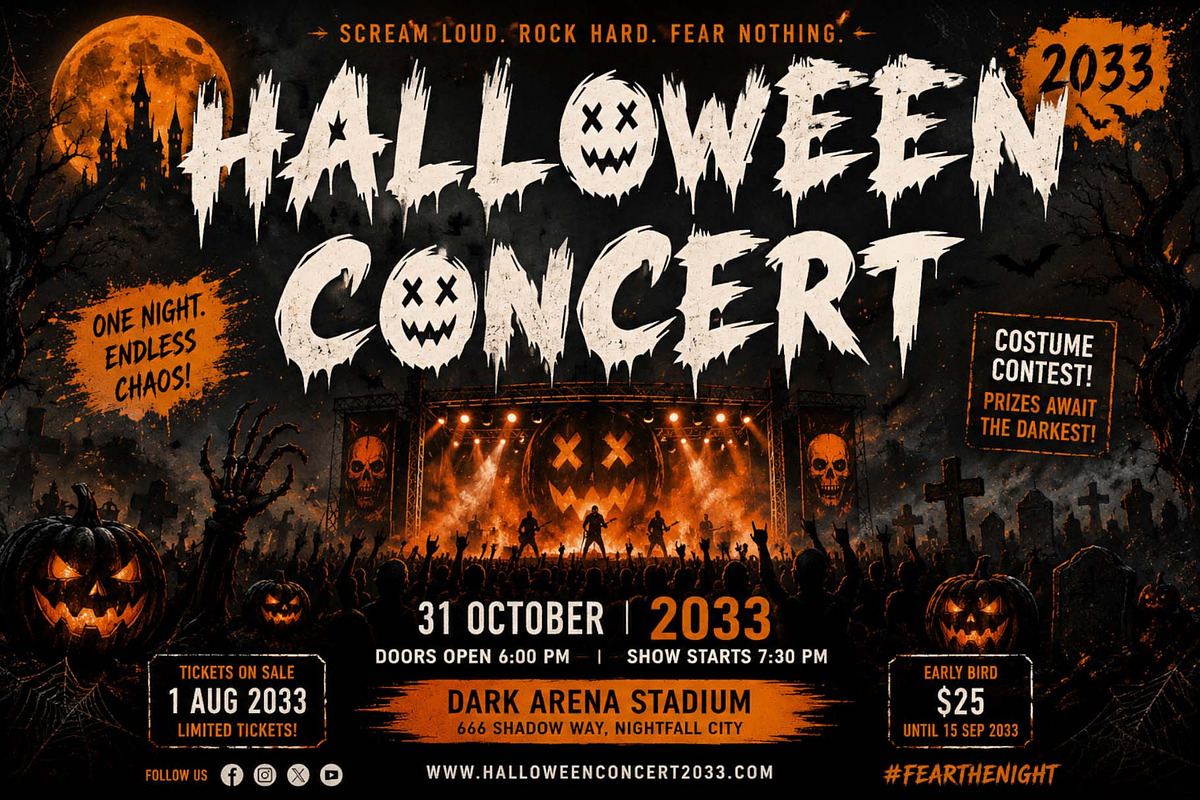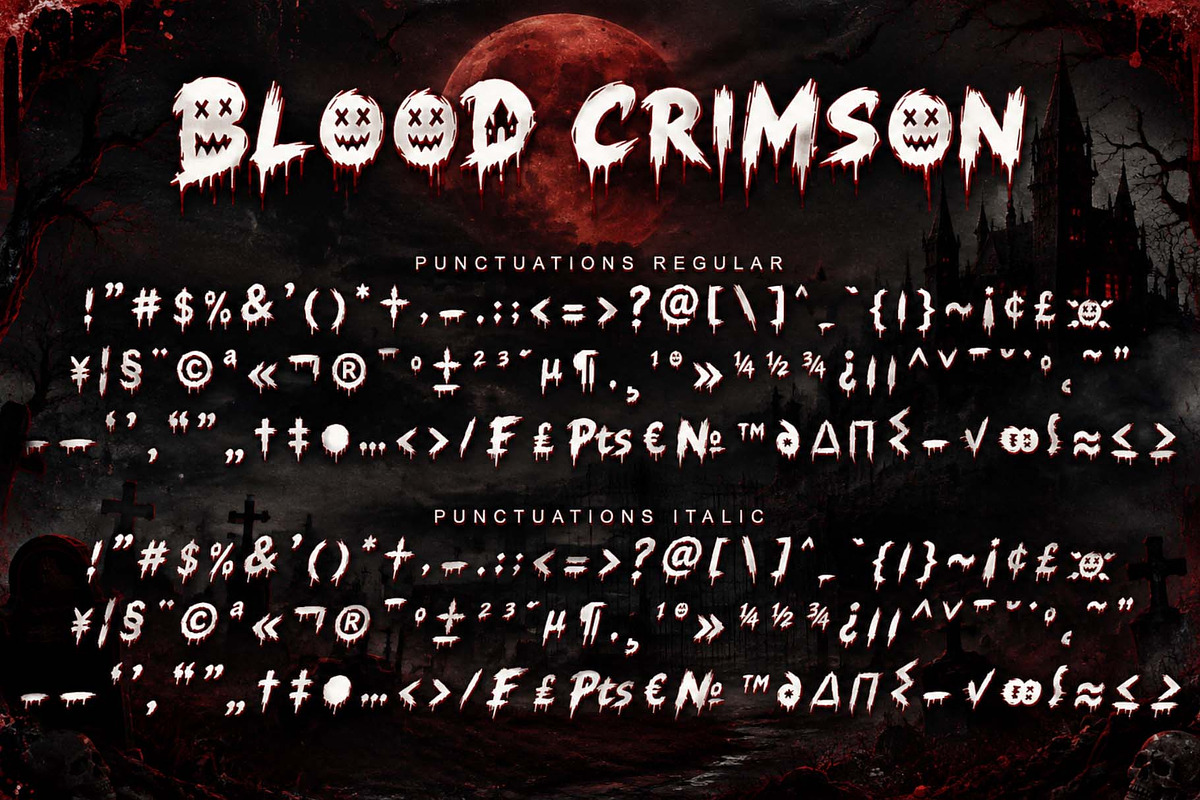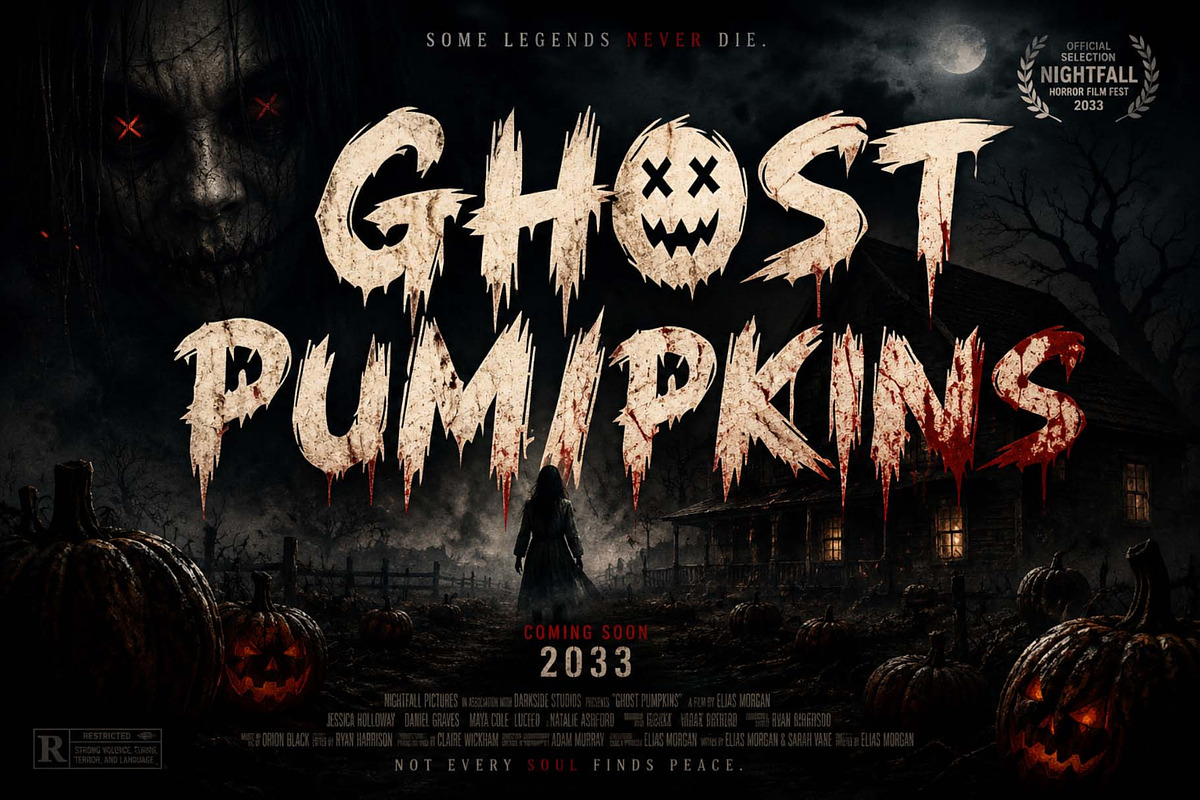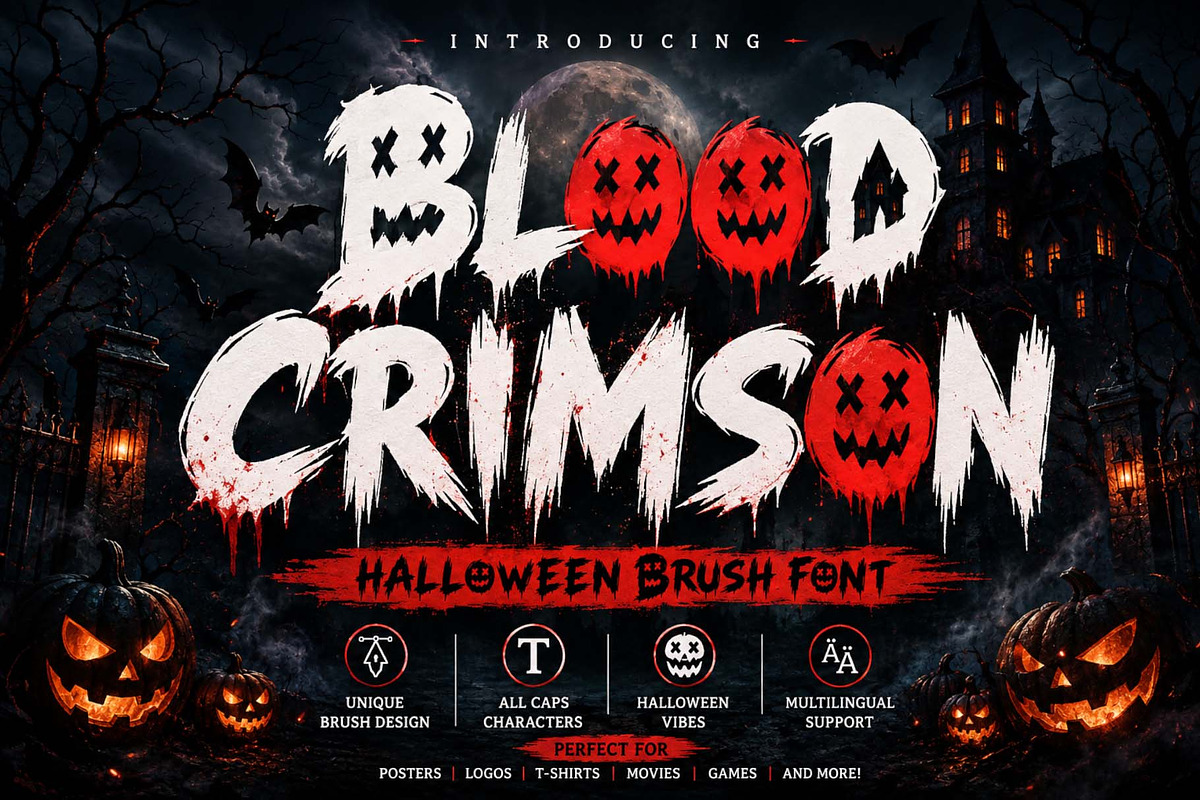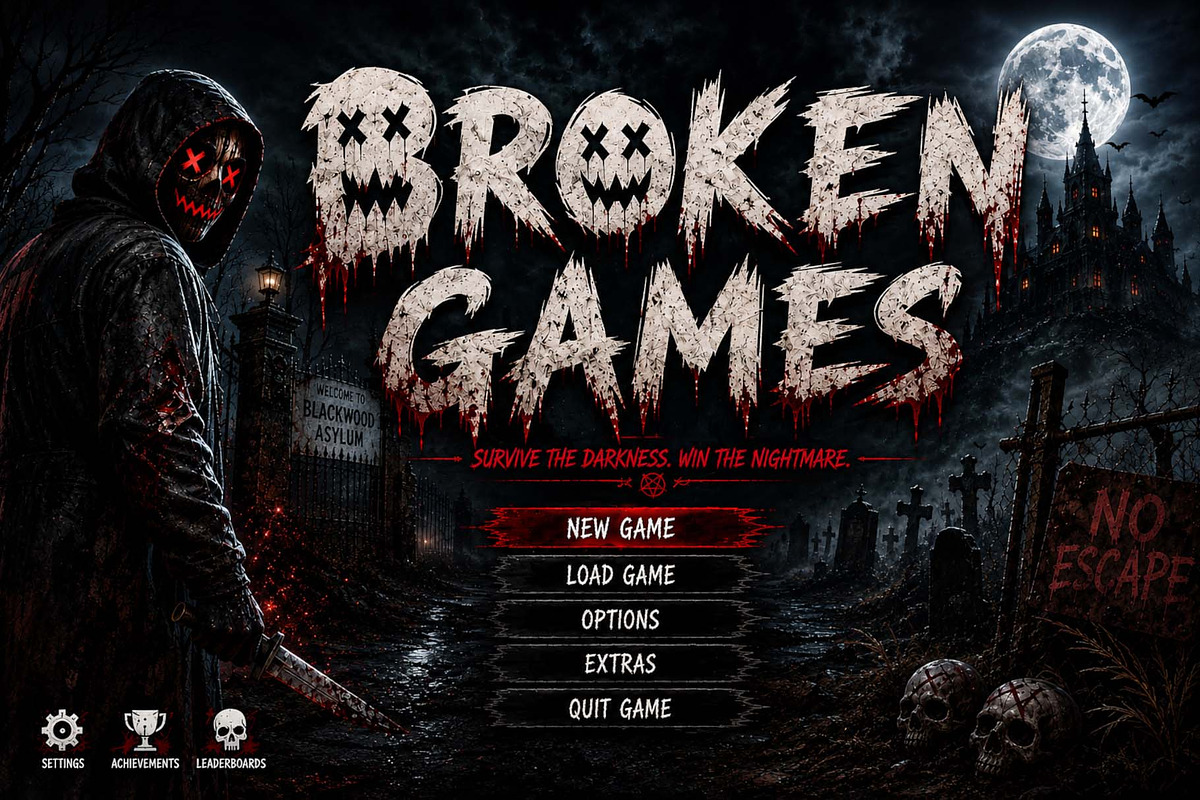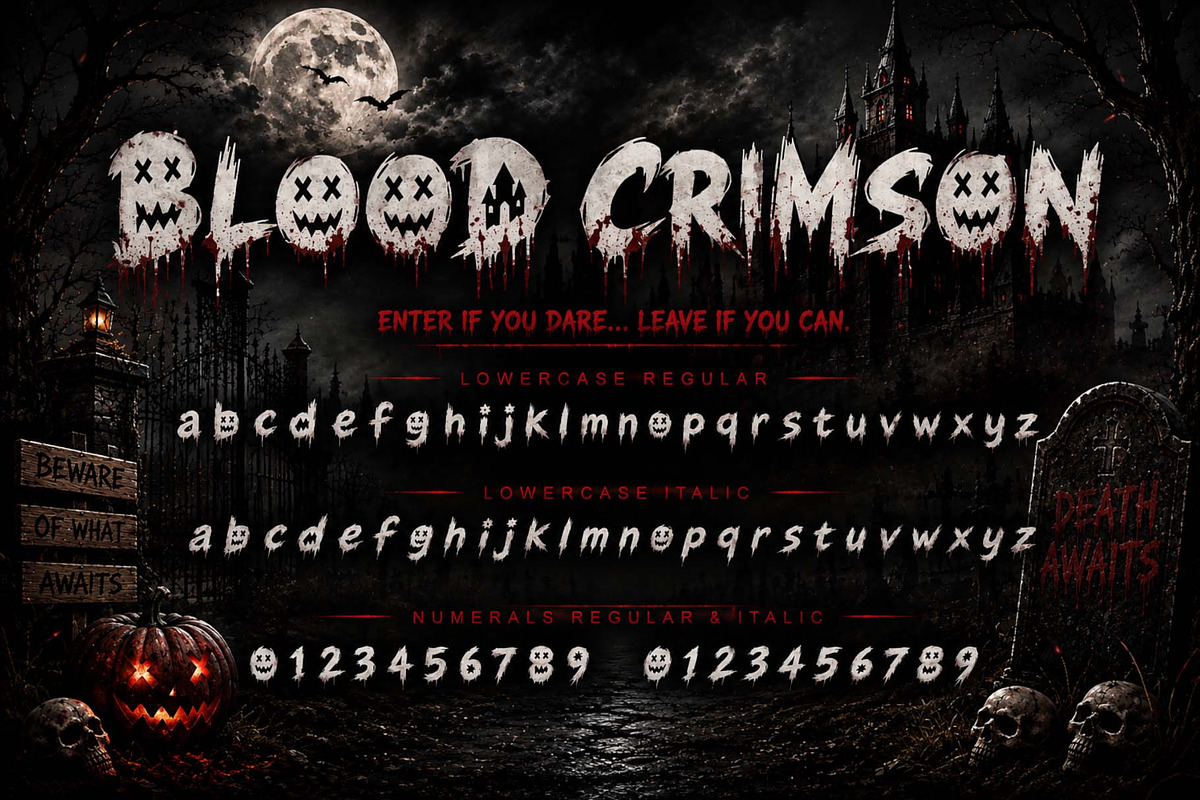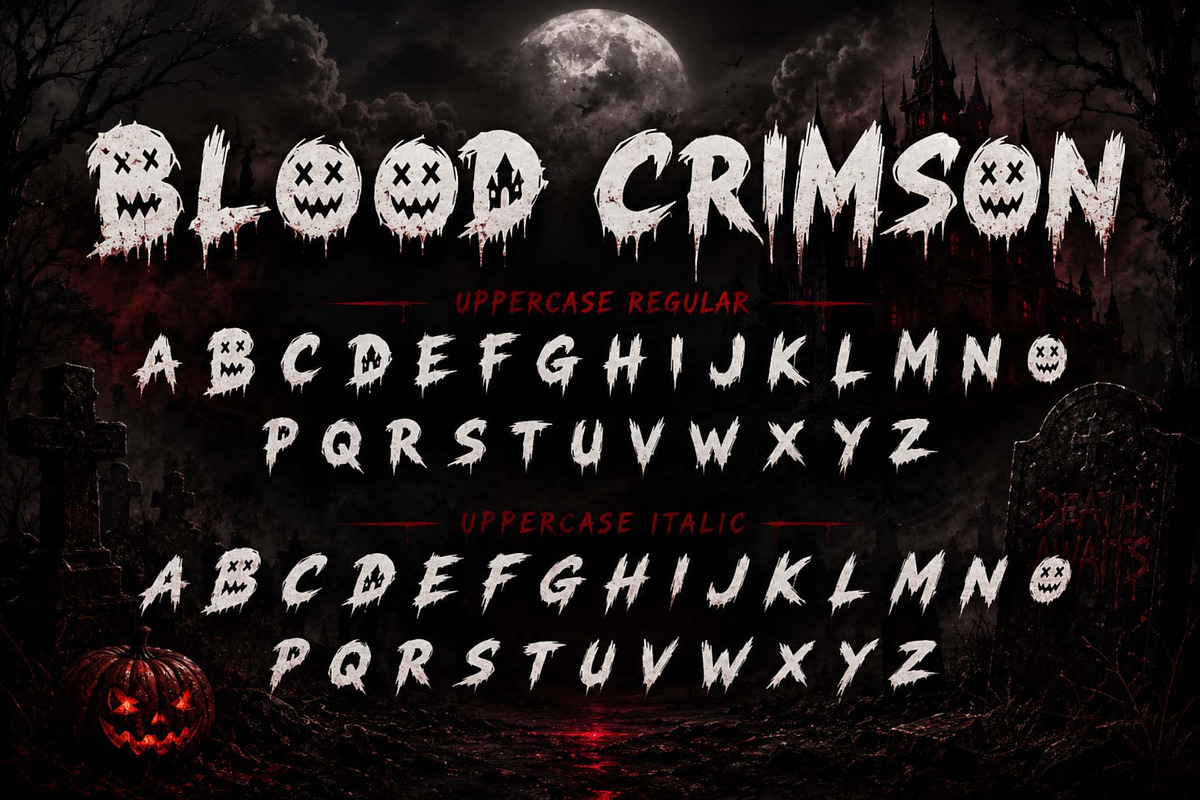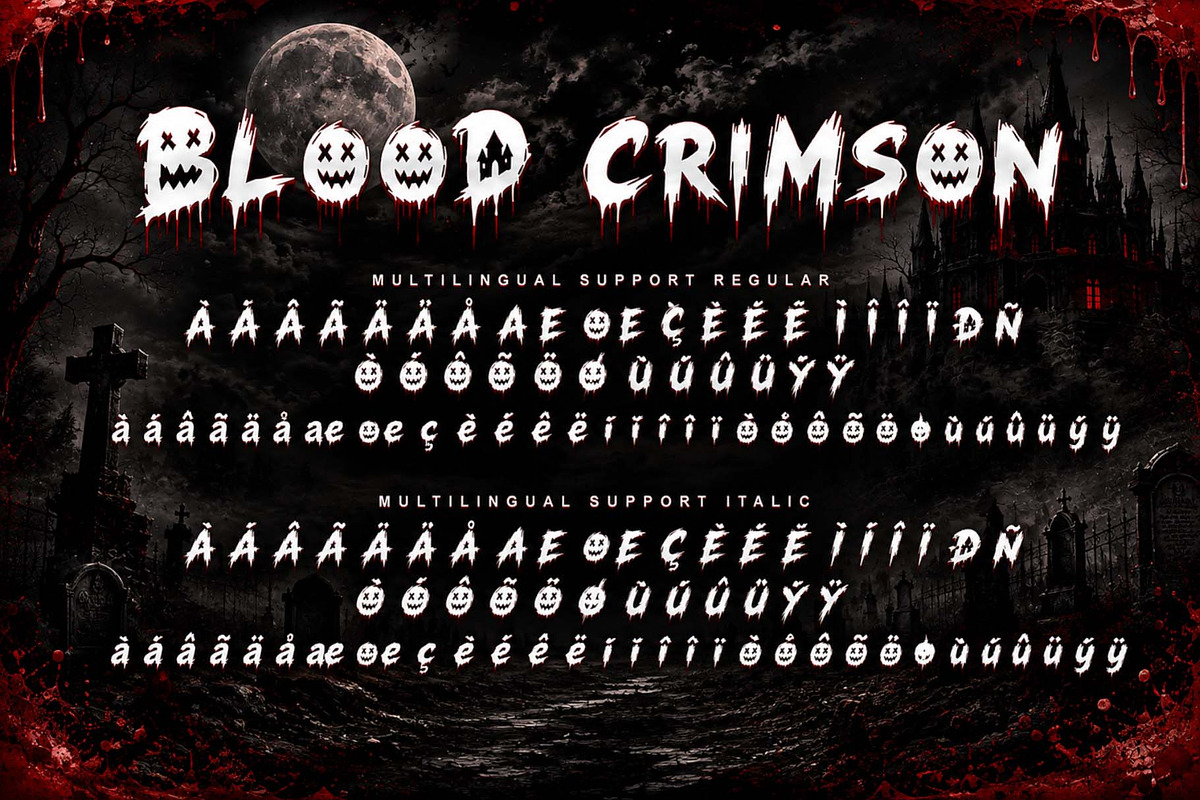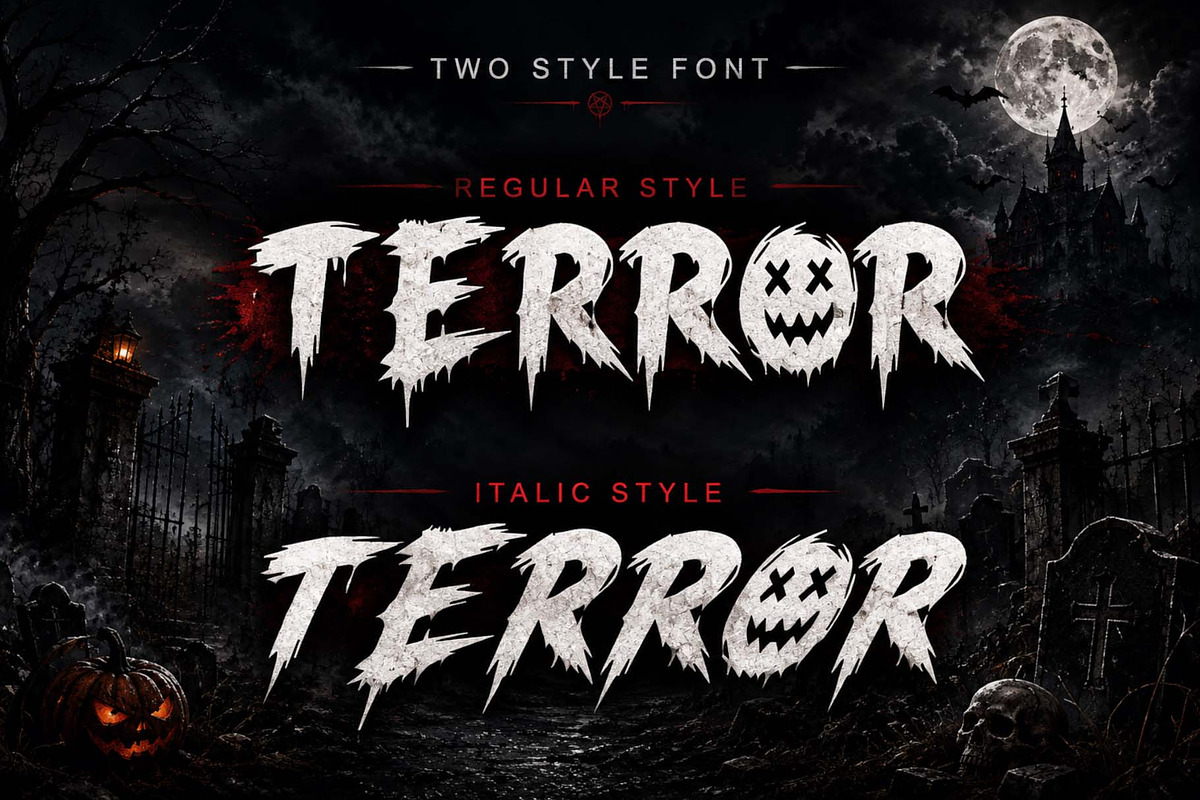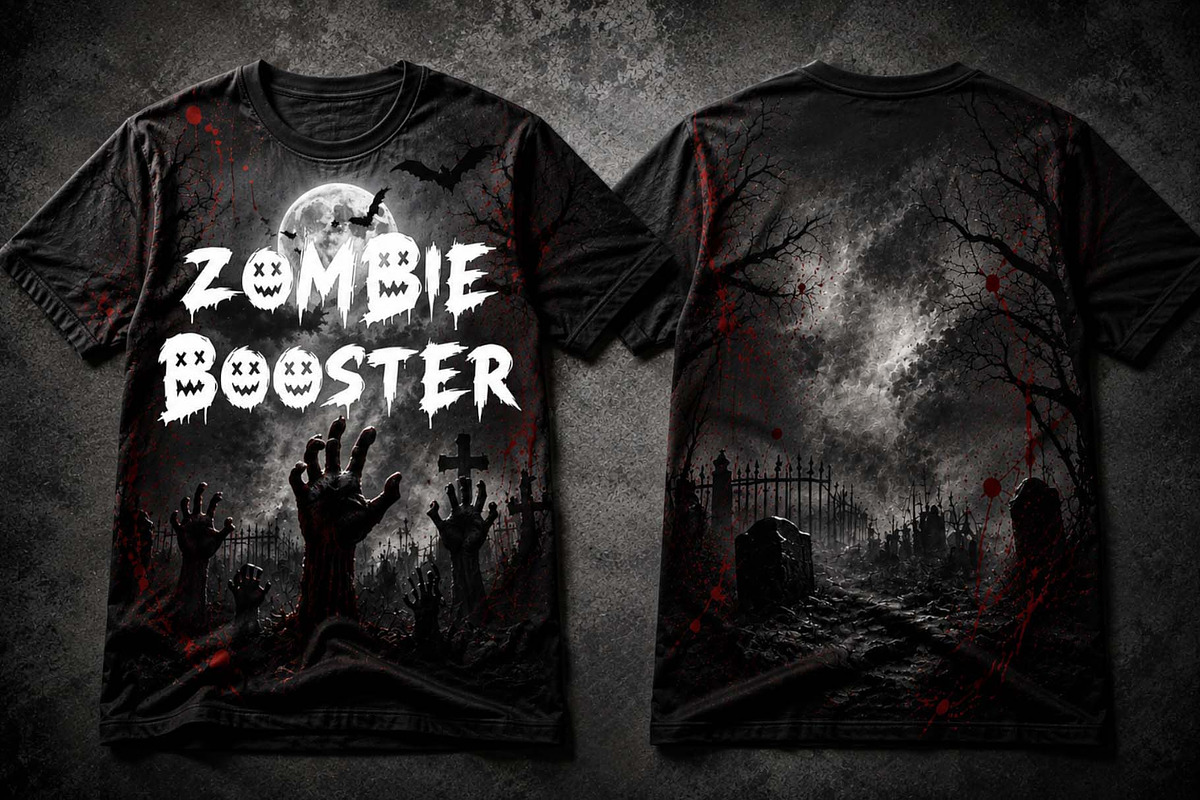
Blood Crimson
Blood Crimson is a bold, brush-style font with a Halloween theme, featuring dripping effects and eerie, monster-like details. It is perfect for horror movie titles, spooky posters, game assets, branding, t-shirt designs, and Halloween party graphics. Its hand-painted brush style delivers a look that is both terrifying and eye-catching, while also offering multilingual support for a wide range of creative projects.